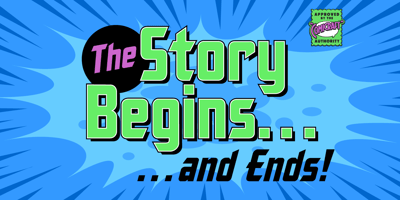
The Story Begins & Ends Font Family was designed by John Roshell and published by Comicraft. The Story Begins & Ends contains 8 styles and family package options. It is NOT the END, my friend. Beyond the Saga, beyond the Hype, Beyond the expectations of marketing executives and studio shareholders lie prequels AND sequels. It has been said that every journey has a first step as THE STORY BEGINS, and every Generation has a Legend, a Story, a Franchise and an inevitable descent into mindless exploitation where THE STORY ENDS. It’s true, all of it!